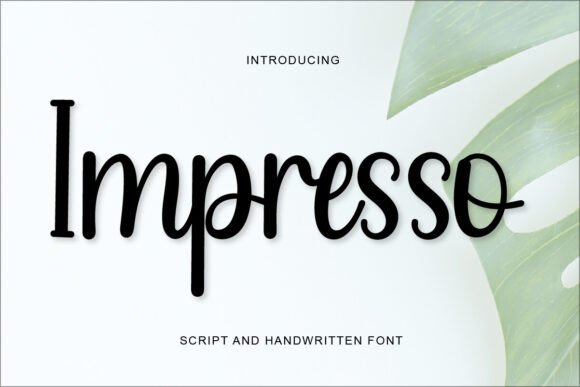
Impresso: A Font That Elevates Your Brand
There’s a moment in every small business owner’s journey when you realize that the little details can make all the difference. For me, it was when I decided to refresh the packaging for my local bakery. The old labels felt outdated, and I knew I needed something fresh—something that would speak to our brand’s personality while still feeling professional. That’s when I discovered Impresso, a font that has since become a staple in my design toolkit.
The Magic of a Well-Chosen Font
Typography is more than just letters on a page—it’s the first impression your brand makes. When you choose a font like Impresso, you’re not just selecting a typeface; you’re shaping the tone of your brand. Impresso is an elegant and flowing handwritten font with a strong calligraphic influence. It feels both classic and contemporary, which makes it incredibly versatile for a wide range of applications.
What sets Impresso apart is its ability to balance sophistication with approachability. It has a soft, flowing character that feels personal yet refined. This makes it perfect for brands that want to convey warmth and authenticity without sacrificing professionalism. Whether you're designing product labels, social media graphics, or website banners, Impresso brings a sense of artistry that elevates the overall look of your materials.
Real-World Applications: From Labels to Menus
I’ve used Impresso in several real-world scenarios, and each time, it made a noticeable impact. For instance, I recently redesigned the packaging for a local candle brand. The new labels featured Impresso as the primary font, and the result was stunning. The font’s fluid lines and elegant curves gave the candles a premium feel, which aligned perfectly with the brand’s image of luxury and care.
Another example came when I helped a café refresh their menu. Using Impresso for the headings and some decorative elements added a touch of personality to the design. The font’s readability was impressive even at smaller sizes, which is crucial for menus where space is limited. It also worked well with the café’s branding, making the menu feel cohesive and intentional.
For online shops and social media content, Impresso shines as well. Its versatility allows it to be used in headlines, short phrases, and even as a decorative accent. I’ve used it in Instagram promotions, website banners, and product tags, and each time, it brought a level of polish that made the visuals stand out.
Readability and Versatility: Key Considerations
While Impresso is undeniably beautiful, I’ve also learned to consider its readability in different contexts. On printed packaging, especially for small labels, it’s important to ensure the font remains legible. I found that using Impresso in larger sizes or pairing it with a clean sans serif font for supporting text helps maintain clarity without losing the font’s charm.
On mobile screens and social media thumbnails, Impresso works best when used sparingly. As a display font, it’s ideal for headlines and titles but may not be the best choice for long blocks of text. That said, it’s incredibly effective when used as part of a thoughtful font pairing strategy. Combining Impresso with a modern sans serif or a simple serif font creates a balanced and visually appealing design.
One of the things I appreciate most about Impresso is its adaptability. Whether you’re working on a logo, a thank-you card, or a digital ad, the font’s style can be tailored to fit your needs. It’s also worth noting that the font includes various styles, weights, and alternates, which gives designers more flexibility in their creative process.
Designing for Consistency and Trust
Consistency is key in branding, and choosing the right font plays a huge role in achieving that. Impresso helps create a consistent visual identity across all customer-facing materials. From product packaging to website banners, the font maintains a unified look that reinforces brand recognition.
Trust is another factor that typography influences. A well-chosen font can make your brand feel more reliable and approachable. Impresso strikes that balance perfectly—it feels personal and genuine, yet professional enough to build credibility with customers.
Final Thoughts on Impresso
Choosing the right font can transform the way your brand is perceived. Impresso is more than just a beautiful typeface—it’s a tool that can help elevate your small business from good to great. Whether you’re updating your packaging, redesigning your menu, or creating new social media content, Impresso offers a unique blend of elegance and modernity that resonates with both customers and creators alike.